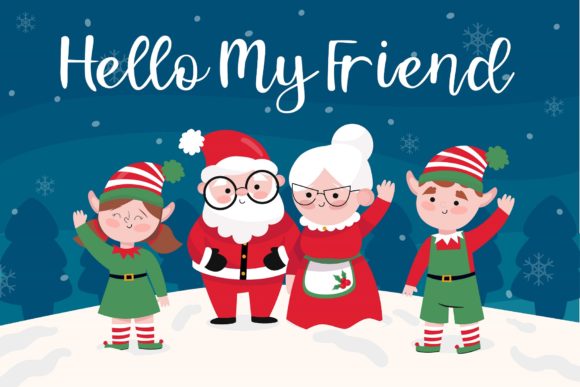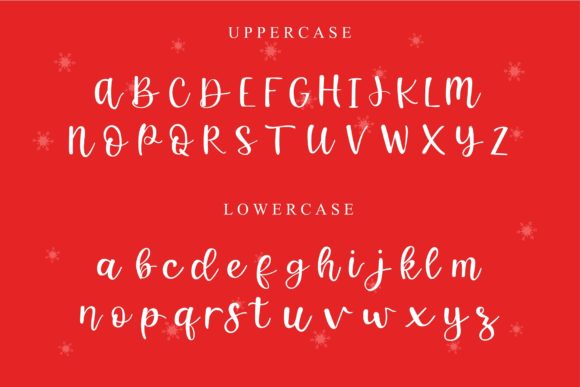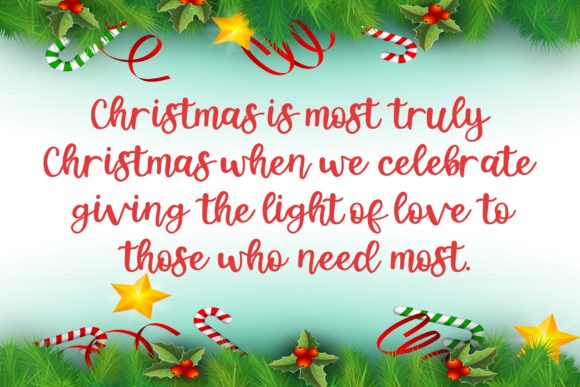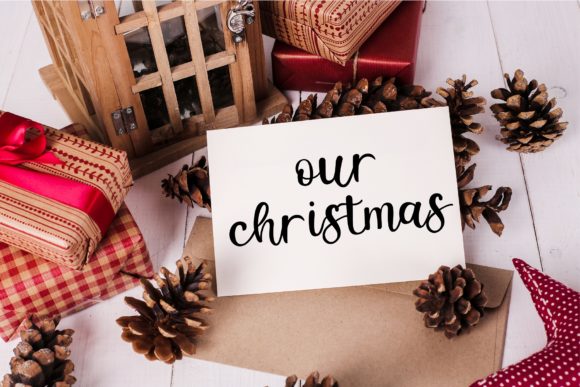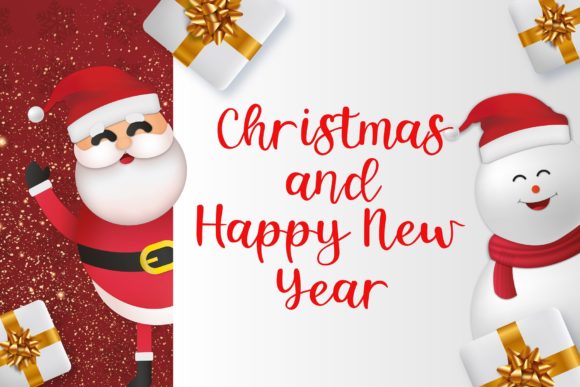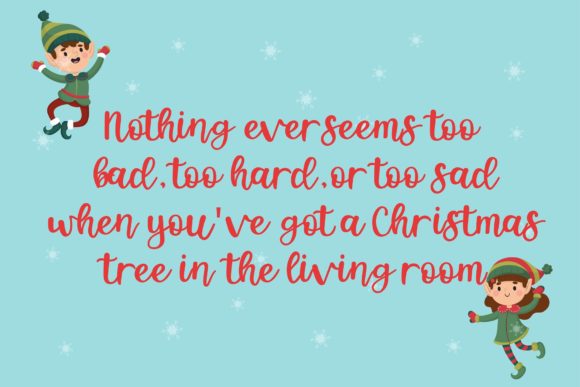
Deck the Halls with Joy: Introducing the Happy Christmas Font
There’s nothing quite like the magic of the holiday season, is there? The twinkling lights, the cozy atmosphere, and the sound of loved ones gathering around the tree – it’s a time of year that sparks creativity and fills our hearts with warmth. And what better way to capture that spirit than with a font that embodies the very essence of joy and festivity?
Meet the Happy Christmas Font, a delightful display font that’s sure to add an extra sprinkle of magic to your holiday designs. Whether you’re crafting handmade cards, decorating your website, or creating social media graphics, this font is the perfect way to spread cheer and get into the holiday spirit. With its quirky charm and playful feel, the Happy Christmas Font is a valuable addition to any designer’s toolkit, and we can’t wait to see the amazing things you’ll create with it!
Key Features of “Happy Christmas Font”
- Font Family: A unique, festive font family designed specifically for the holiday season.
- Unique Characteristics: Features a playful, cursive script with festive ornaments and decorations, adding a touch of holiday cheer to any design.
Designer Review: Happy Christmas Font
I had the chance to work with the Happy Christmas Font, and I must say, it’s a mixed bag. Here’s my honest take on it.
- Playful and cheerful vibe: The font’s design perfectly captures the essence of Christmas, making it ideal for holiday-themed projects.
- Good legibility: Despite its cursive nature, the font remains easy to read, even at smaller sizes.
- Customization options: The font comes with various weights and styles, allowing for some level of customization to suit different design needs.
- Restricted use cases: Due to its Christmas-specific theme, the font may not be suitable for general use throughout the year.
- Overuse: The font’s festive design may become too much if overused, making it look cheesy or tacky.
- Limited language support: I noticed that the font doesn’t support non-Latin scripts, which might limit its use in multilingual projects.
The Happy Christmas Font is a fun, festive addition to any holiday-themed project. While it may have some limitations, its playful vibe and good legibility make it a solid choice for designers looking to add some Christmas cheer to their designs.
Tips for Getting the Most Out of the Happy Christmas Font
Here are a few tips to help you get the most out of the Happy Christmas Font:
– Use the font in conjunction with festive colors and graphics to create a cohesive holiday design.
– Experiment with different font sizes and styles to add visual interest to your design.
– Consider using the font in combination with other holiday-themed fonts for a unique and creative look.
The Happy Christmas Font is perfect for a variety of holiday-themed projects, including:
– Christmas cards and invitations
– Holiday social media graphics
– Gift tags and labels
– Christmas party decorations and signage